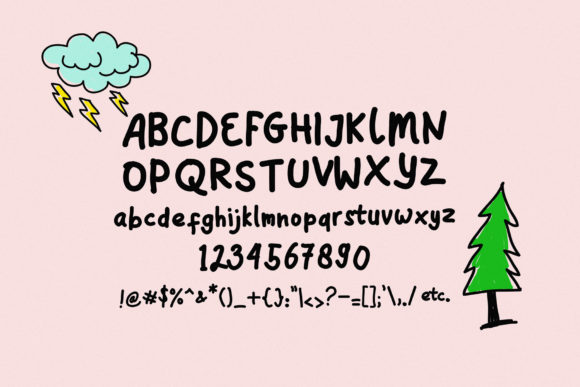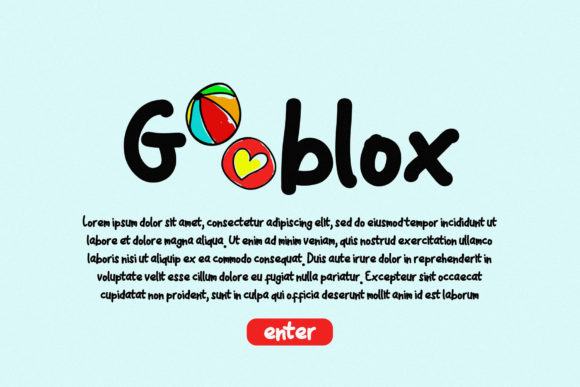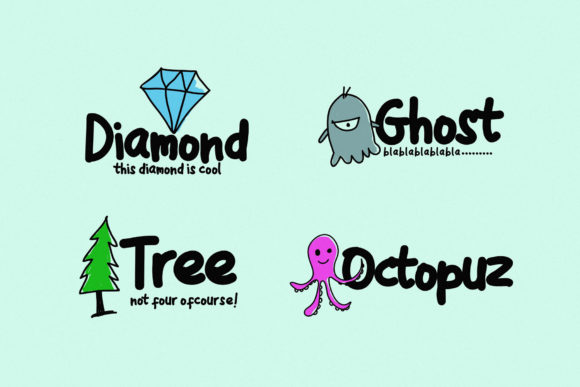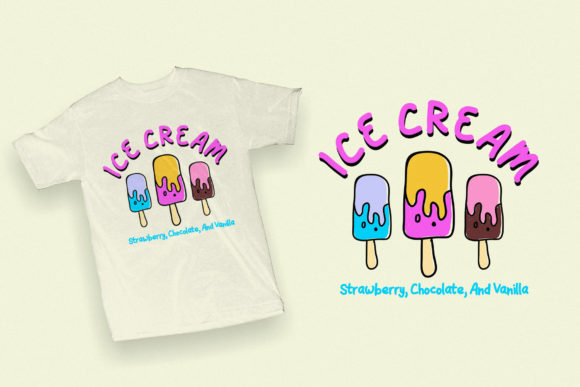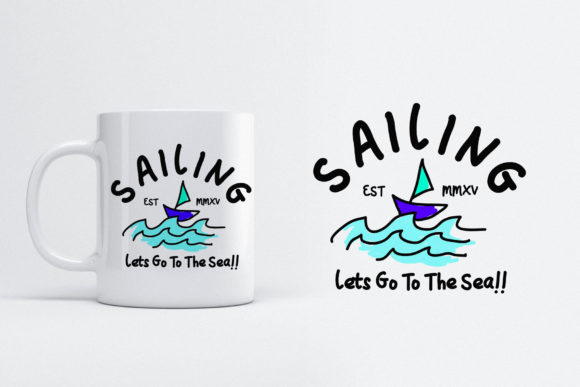
Introduction to Fun Story Font
Have you ever stumbled upon the perfect design element that makes your creative project pop? For designers, it’s that feeling of excitement when everything comes together – the colors, the textures, and the typography. It’s a moment that sparks imagination and sets the tone for a truly engaging visual experience. One such design element that’s sure to bring a smile to your face is the Fun Story Font, a sweet and fun display font with a whimsical feel.
As a valuable design resource, the Fun Story Font offers a high-quality solution for designers looking to add a playful touch to their work. With its transparent background and elegant design, this font is perfect for creating eye-catching graphics, social media posts, and even branding materials. Plus, it’s available for a free download, making it an accessible resource for designers of all levels.
Key Features of Fun Story Font
- High-quality, free font design resource ideal for creative projects.
- Fun Story Font is a unique, hand-drawn design that adds a touch of whimsy to any creative project.
Honest Review: Fun Story Font
I recently stumbled upon the Fun Story Font and I must say it’s a gem for any design enthusiast. This free download has been a game-changer for my creative projects.
- ✨ High quality design: The Fun Story Font boasts beautiful, intricate details that make it perfect for a variety of design needs.
- ✨ Versatile usage: It’s suitable for both digital and print media, making it a great addition to any design resource.
- ✨ Easy to use: The font is well-designed and easy to read, even on a transparent background.
While it’s a fantastic addition to any designer’s toolkit, I do have a few minor gripes. The font family is relatively small, which can be a limitation for larger design projects.
- ⚠️ Limited font family: There are only a few styles available, which might not be enough for designers who need a lot of flexibility.
- ⚠️ Not ideal for bold text: The font doesn’t hold up well when used for bold or italic text, which can be a drawback for some designers.
Overall, I’m thoroughly impressed with the Fun Story Font. It’s a high-quality design resource that’s perfect for anyone looking to add a touch of whimsy to their creative projects. I highly recommend giving it a try!
When using Fun Story Font, be sure to experiment with different font sizes, colors, and combinations to find the perfect look for your project. You can also use the font in conjunction with other design elements, such as images and shapes, to create a unique and eye-catching design.
Fun Story Font is a versatile design resource that can be used in a variety of creative projects, including social media graphics, blog posts, and presentations. It’s also a great option for designers who want to add a touch of whimsy and personality to their designs.
One of the best things about Fun Story Font is that it’s a free download, making it accessible to designers of all levels. Additionally, the font has a transparent background, making it easy to use in a variety of design projects. With its high-quality design and versatility, Fun Story Font is a must-have design resource for any creative project.
Is the Fun Story Font suitable for print projects?
Yes, the Fun Story Font is suitable for print projects due to its high-quality design and precise typography. However, please note that you may need to adjust the font size and line spacing to ensure optimal readability on print materials. Additionally, consider using a font with a larger x-height for better legibility at smaller font sizes.